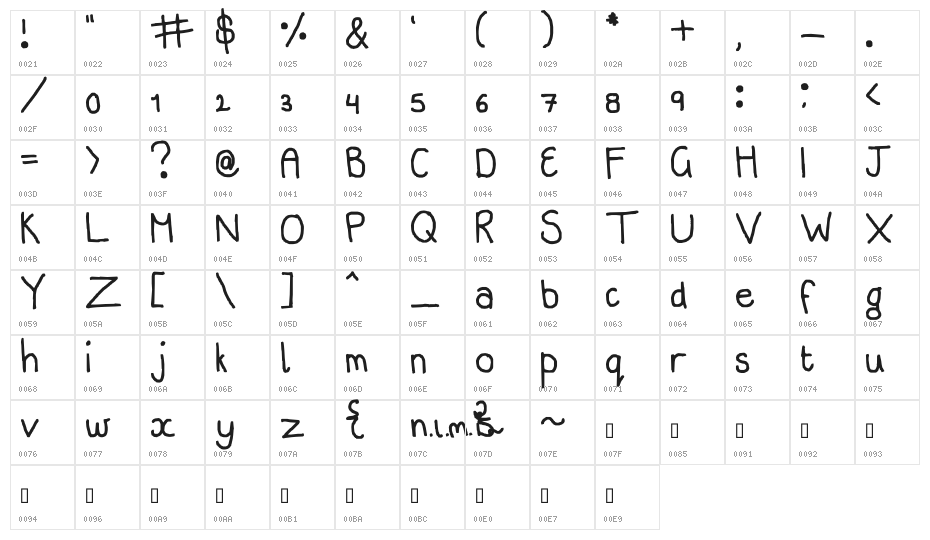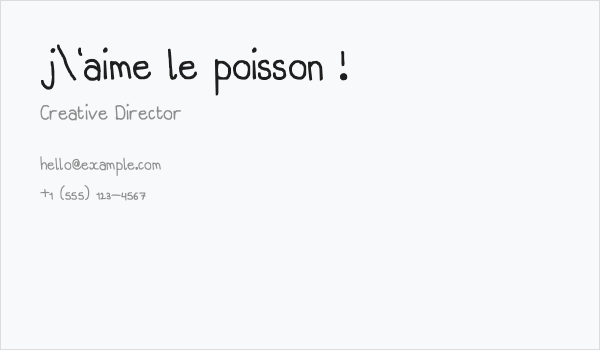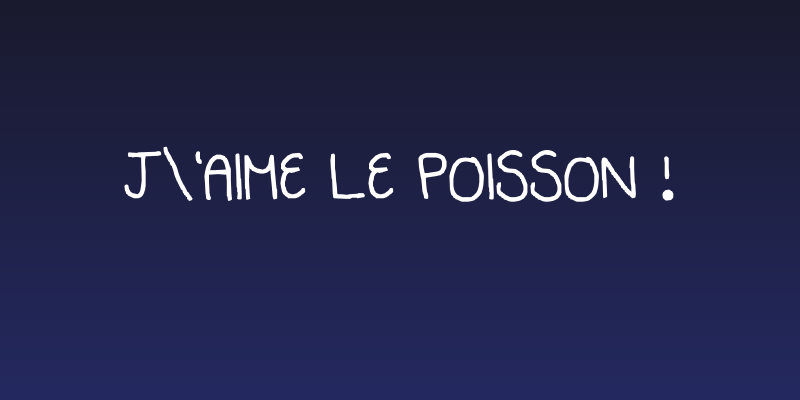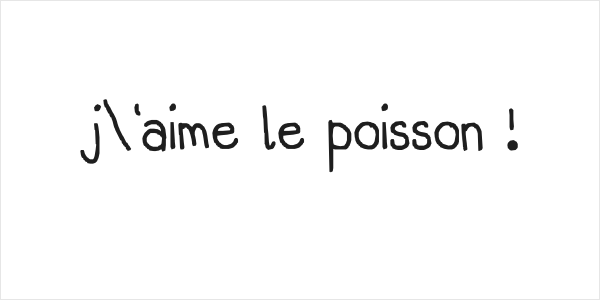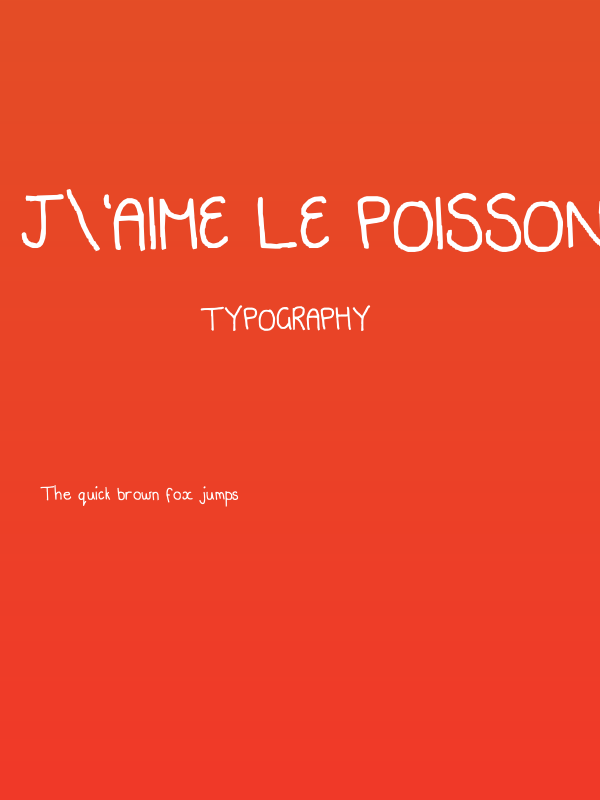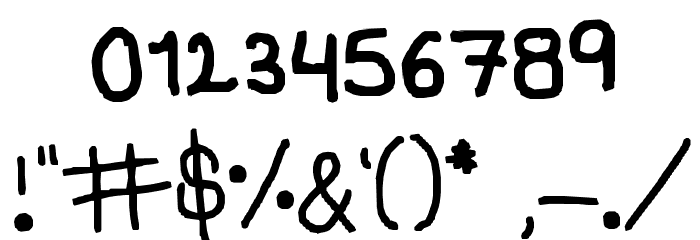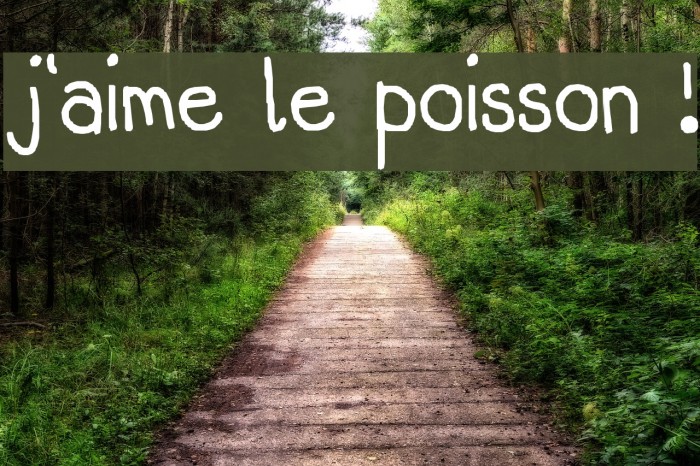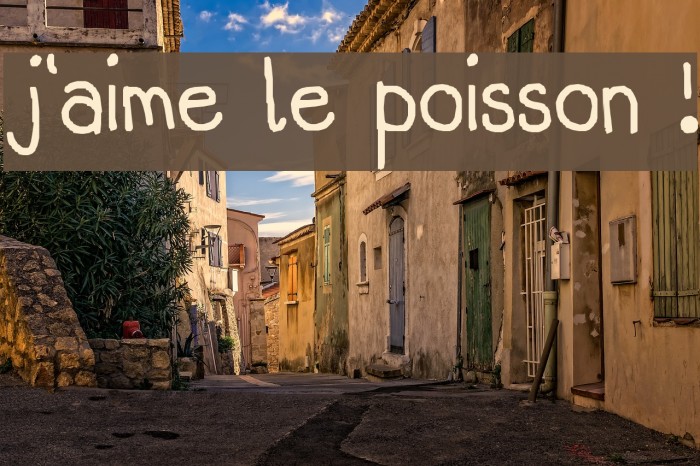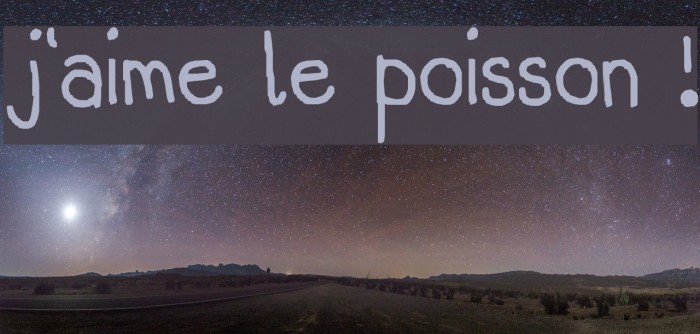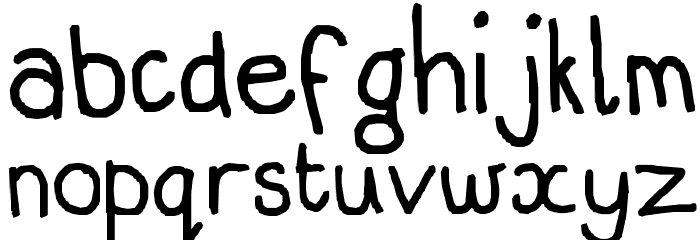
j'aime le poisson ! Font
j'aime le poisson ! Description
This font exhibits a playful and informal handwritten style, characterized by its irregular and slightly uneven strokes. The letters have a casual, friendly appearance, with rounded edges and a slightly whimsical touch. The uppercase and lowercase letters maintain a consistent style, while the numbers and special characters complement the overall aesthetic. This font's unique charm lies in its imperfect lines and organic feel, making it suitable for projects that require a personal and approachable tone.
| Overall Style | Casual |
| Use Case | Headlines, Informal text, Creative projects |
| Proposed Projects | Ideal for children's books, greeting cards, casual invitations, and creative branding projects. |